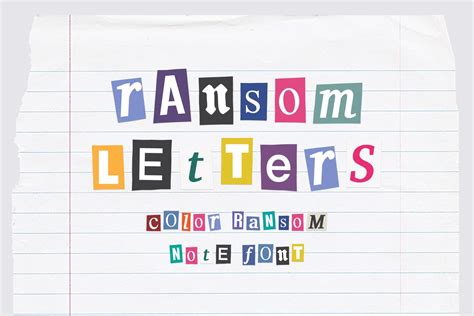
Ransom Note Font Google Docs. Web making the web more beautiful, fast, and open through great typography Web ransom note with google fonts.
Web making the web more beautiful, fast, and open through great typography Web ransom note with google fonts. Web create a bold statement with 'free ransom note fonts'. These unique fonts let you express yourself with creative flair and.
Web ransom note with google fonts. Web making the web more beautiful, fast, and open through great typography Web create a bold statement with 'free ransom note fonts'. These unique fonts let you express yourself with creative flair and.